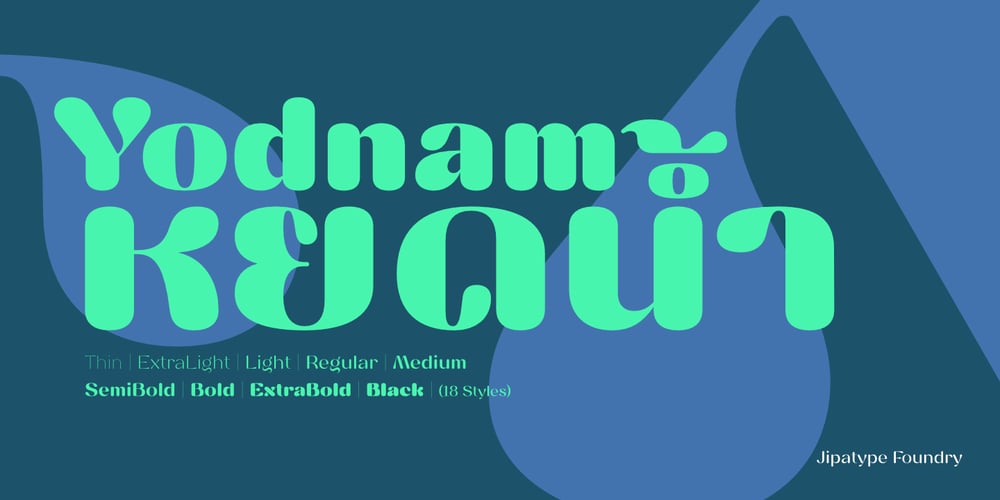
Yodnam
Yodnam font
Yodnam Font Family was designed by Anupap Jaichumnan and published by Jipatype. Yodnam contains 18 styles and family package options. Yodnam is a contrast sans-serif typeface that combines elegance with modernity. The name “Yodnam” is derived from the Thai word meaning “water drop,” reflecting the font’s unique design, characterized by subtle, rounded stroke endings that mimic the fluidity and softness of a droplet. Supporting both Latin-1 and Thai scripts.